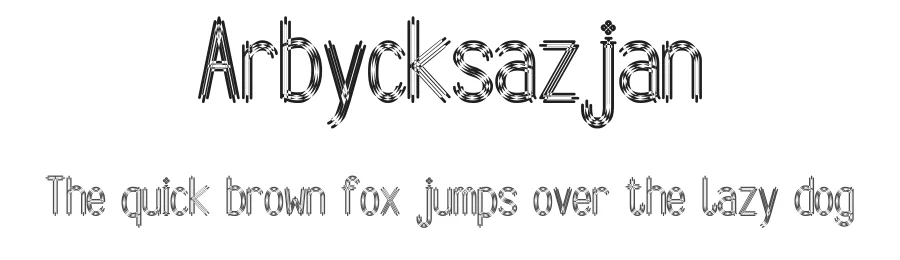
About Razor Face Font
This is a digital revival of the typeface Scott Gothic, a photolettering font from the treasure chest of Dan X Solo.
Razor Face Font is a decorative font that shines as a display or heading face. Pair it with a clean sans-serif or serif font for body text β the contrast creates a clear hierarchy while the two styles stay balanced and easy to read.
Razor Face Font